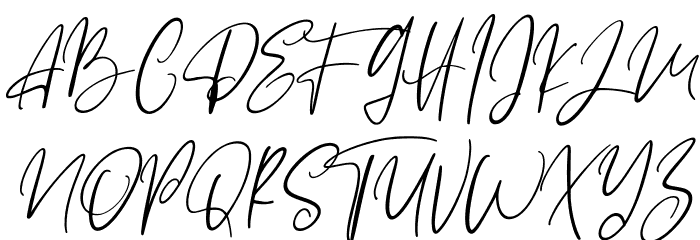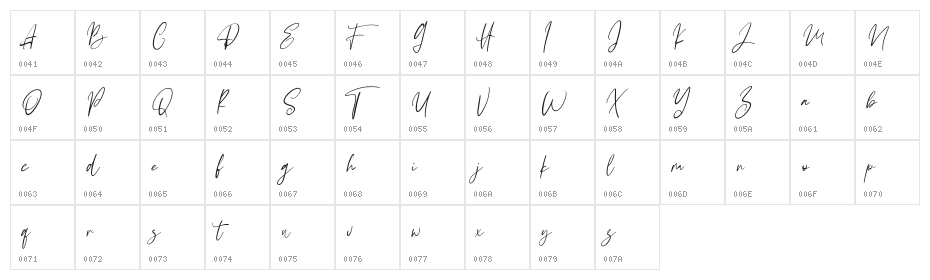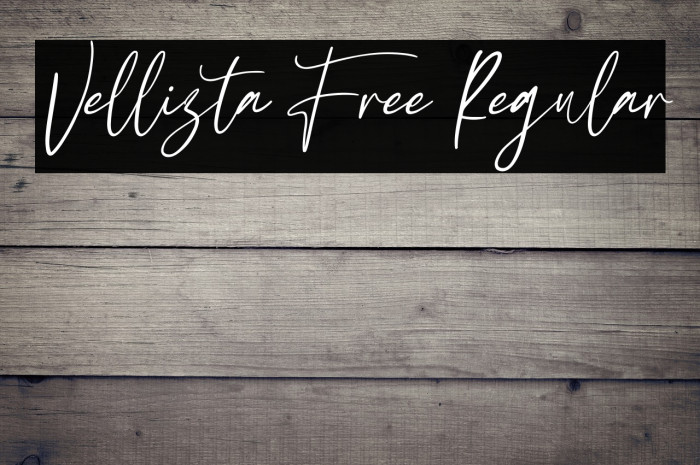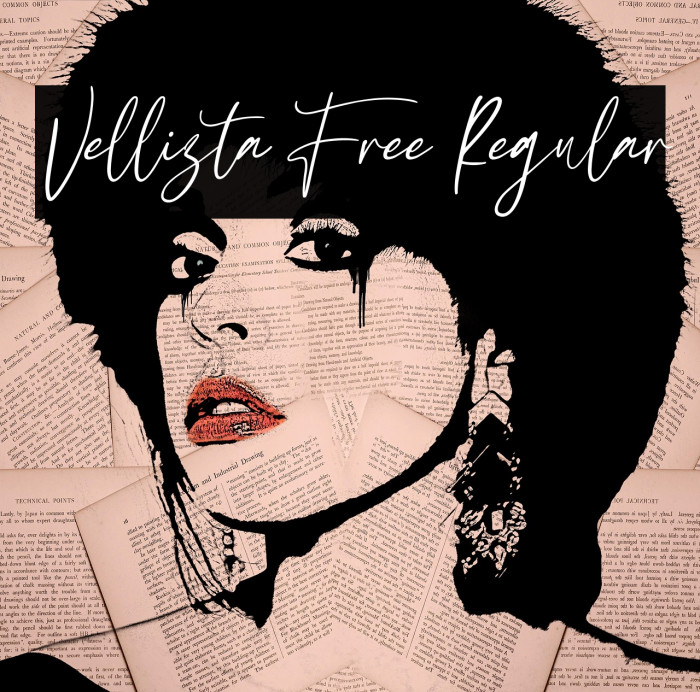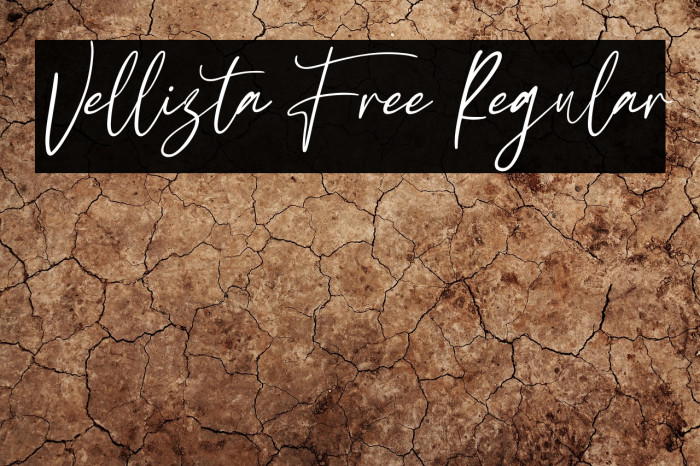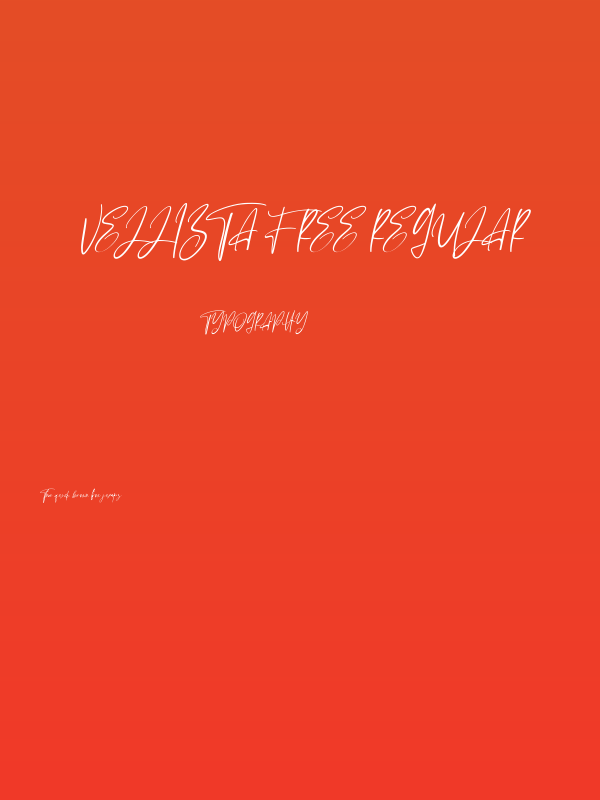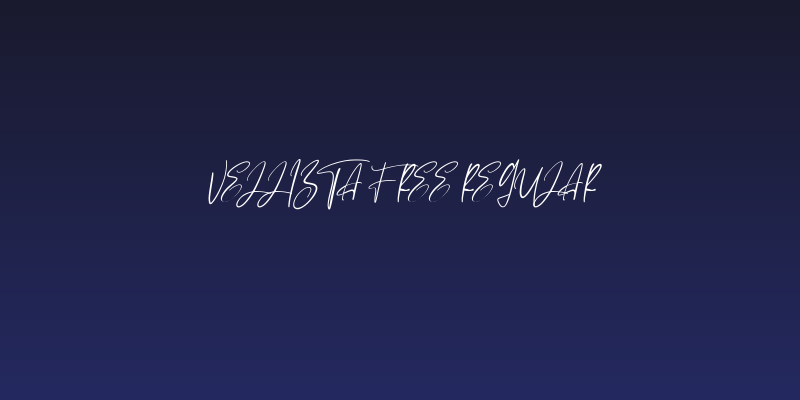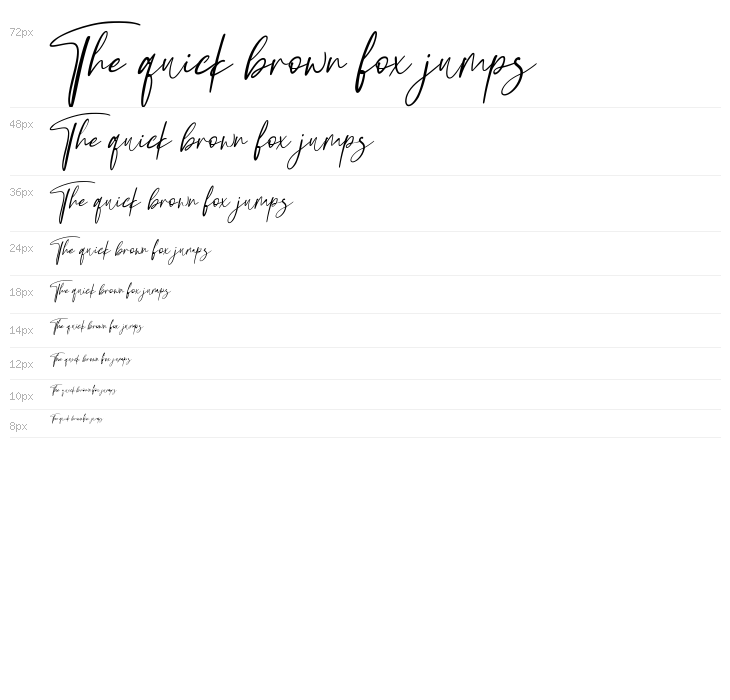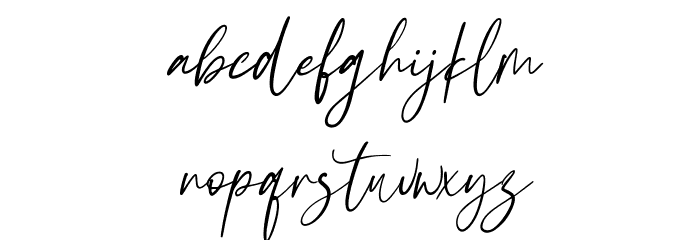
Vellizta Free Regular Font
Vellizta Free Regular Description
This font features an elegant and flowing script style, characterized by its smooth, cursive letterforms that convey a sense of sophistication and grace. The uppercase letters are bold and sweeping, while the lowercase letters maintain a delicate and airy appearance. The font's overall design is highly decorative, with intricate loops and flourishes that add a touch of artistry to each character. The spacing between characters is tight, enhancing the connected, handwritten feel. This font is ideal for projects that require a personal, artistic touch, such as invitations, greeting cards, or branding materials that aim to convey elegance and creativity.
| Proposed Projects | Ideal for invitations, greeting cards, branding materials, and artistic projects. |